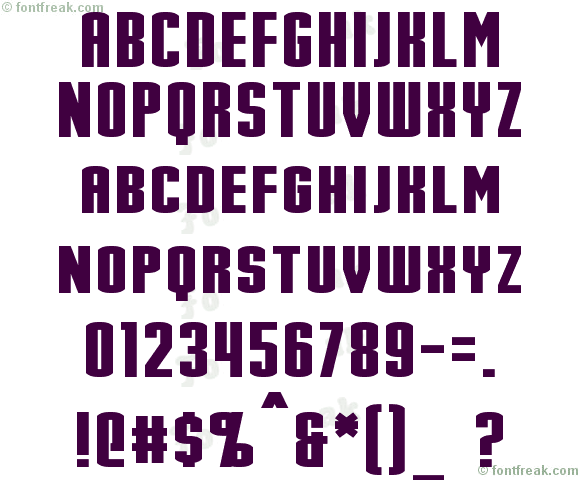
Stark
The Stark font, designed by Neale Davidson in 2012, is a modern sans-serif typeface that captures attention with its clean lines and geometric forms. This font features a uniform stroke weight that creates a harmonious balance throughout its characters, enhancing readability while maintaining a contemporary aesthetic. The ample spacing between letters contributes to a sense of openness, making Stark not only visually appealing but also functional for various design applications.
Stark is versatile and suited for a variety of use cases. It excels in digital and print media, making it a perfect choice for branding projects, particularly for small business owners looking to establish a strong visual identity. Its modernity makes it ideal for minimalist wedding invitations, ensuring elegance without overwhelming design elements. Stark also works well in restaurant menus, where clarity and style are essential for showcasing offerings. Additionally, graphic designers can utilize this font in website headers and promotional materials, where a sleek, professional look is desired.
The target audience for the Stark font includes graphic designers, content creators, and small business owners who appreciate modern typography's impact on visual communication. With its straightforward yet impactful design, Stark is an excellent choice for those aiming to convey professionalism and sophistication in their projects.
What sets the Stark font apart is its combination of simplicity and versatility. It stands out in a crowded marketplace of typefaces, offering a unique blend of modern design and functionality. Whether you are creating an eye-catching advertisement or a classic invitation, Stark font free download provides an accessible option for enhancing your creative projects, ensuring your typography resonates with your audience.